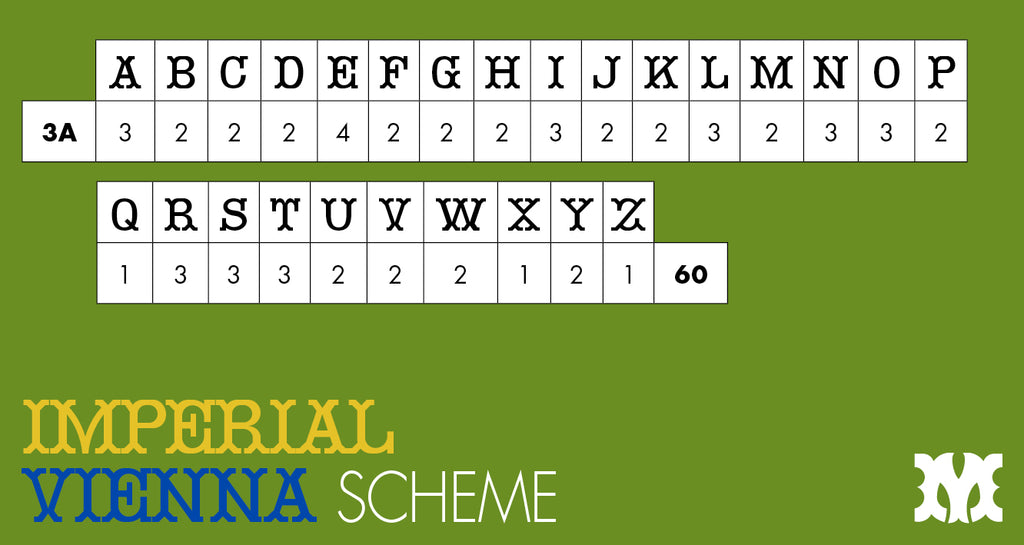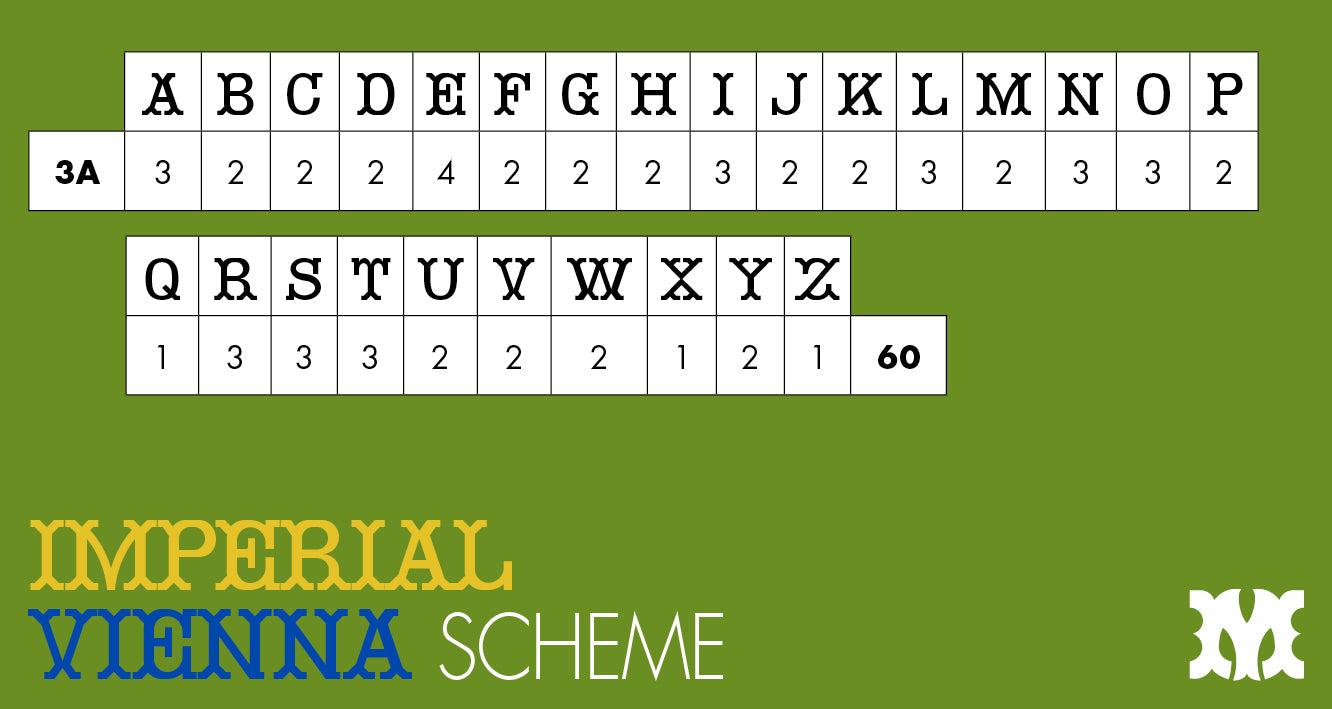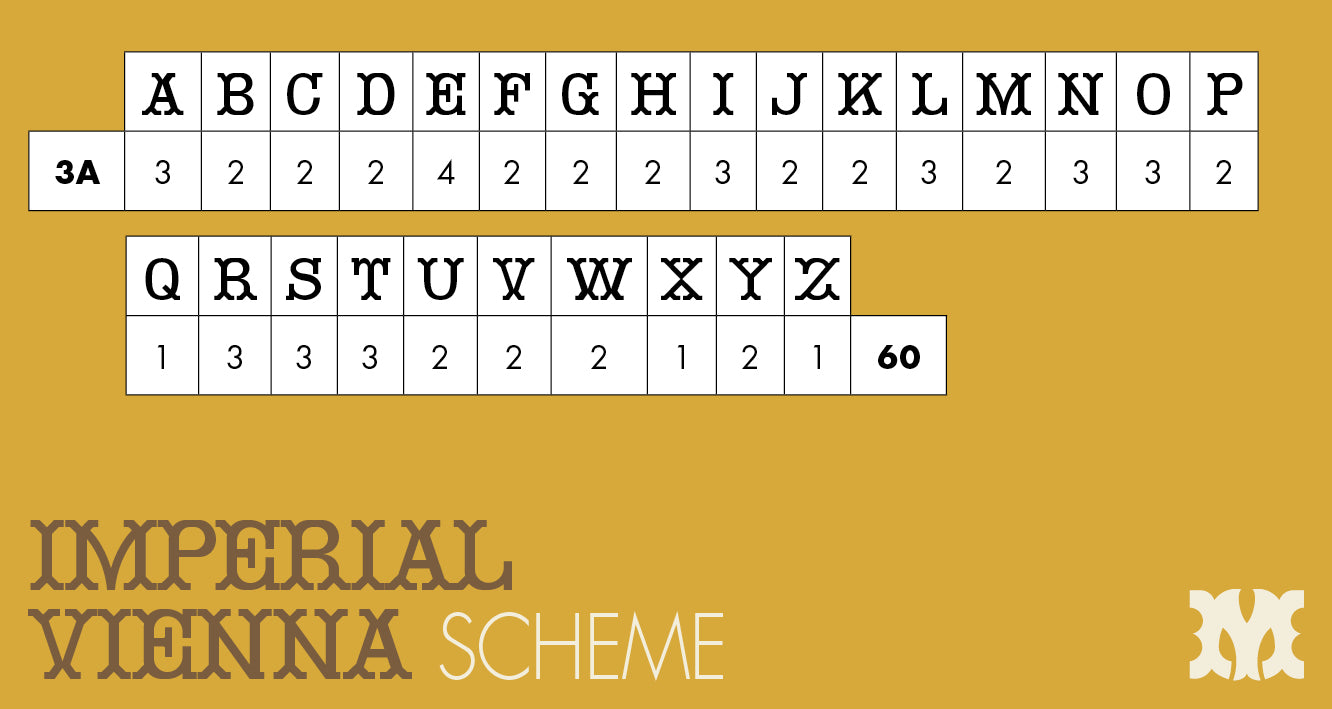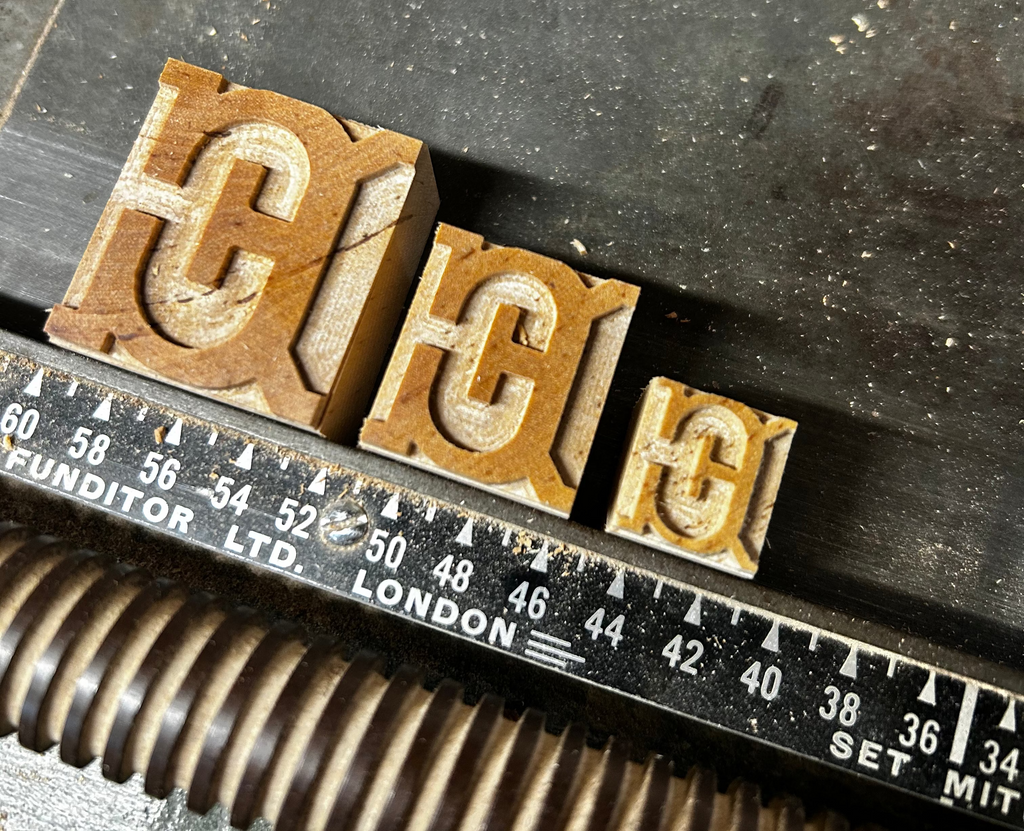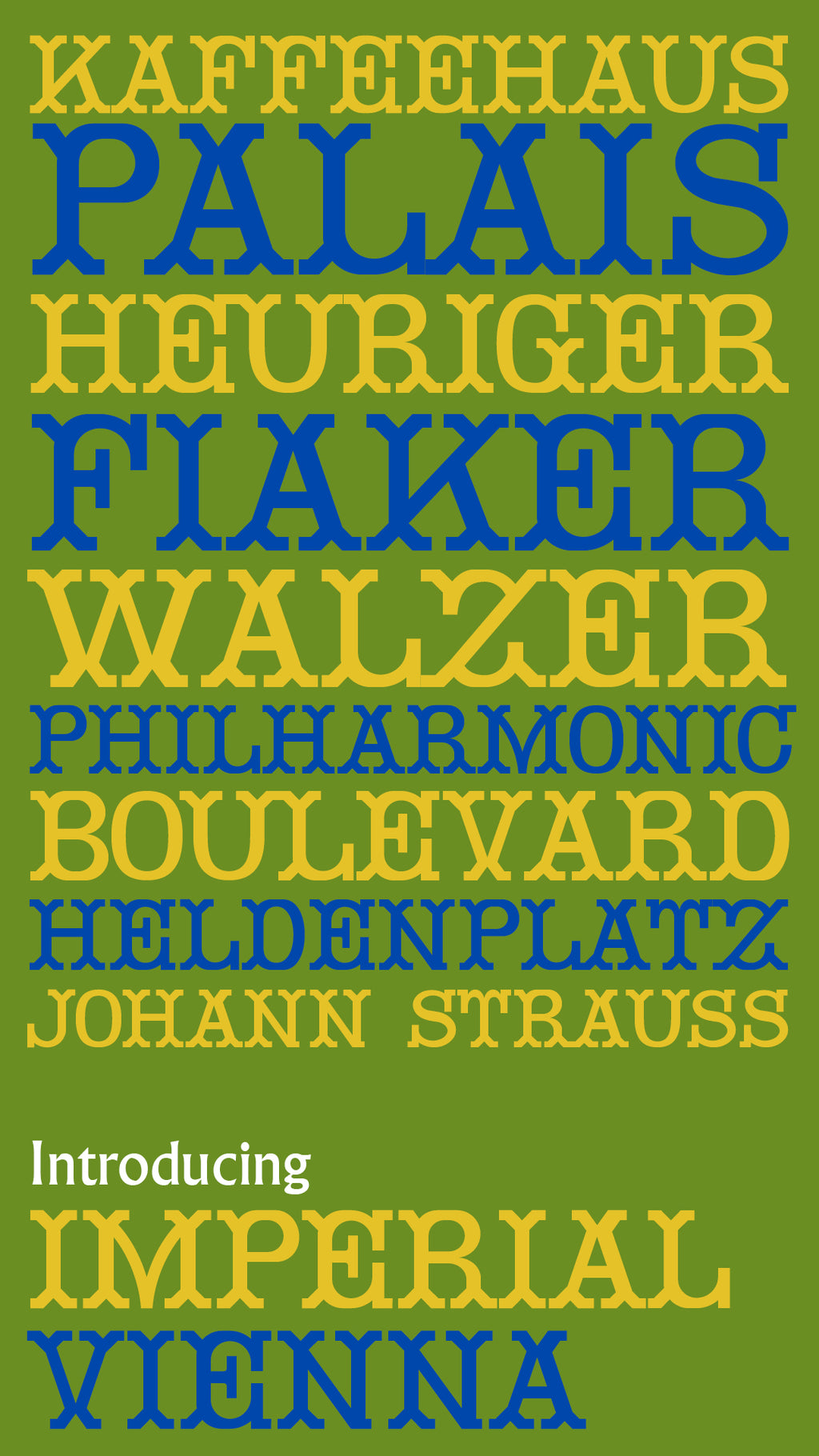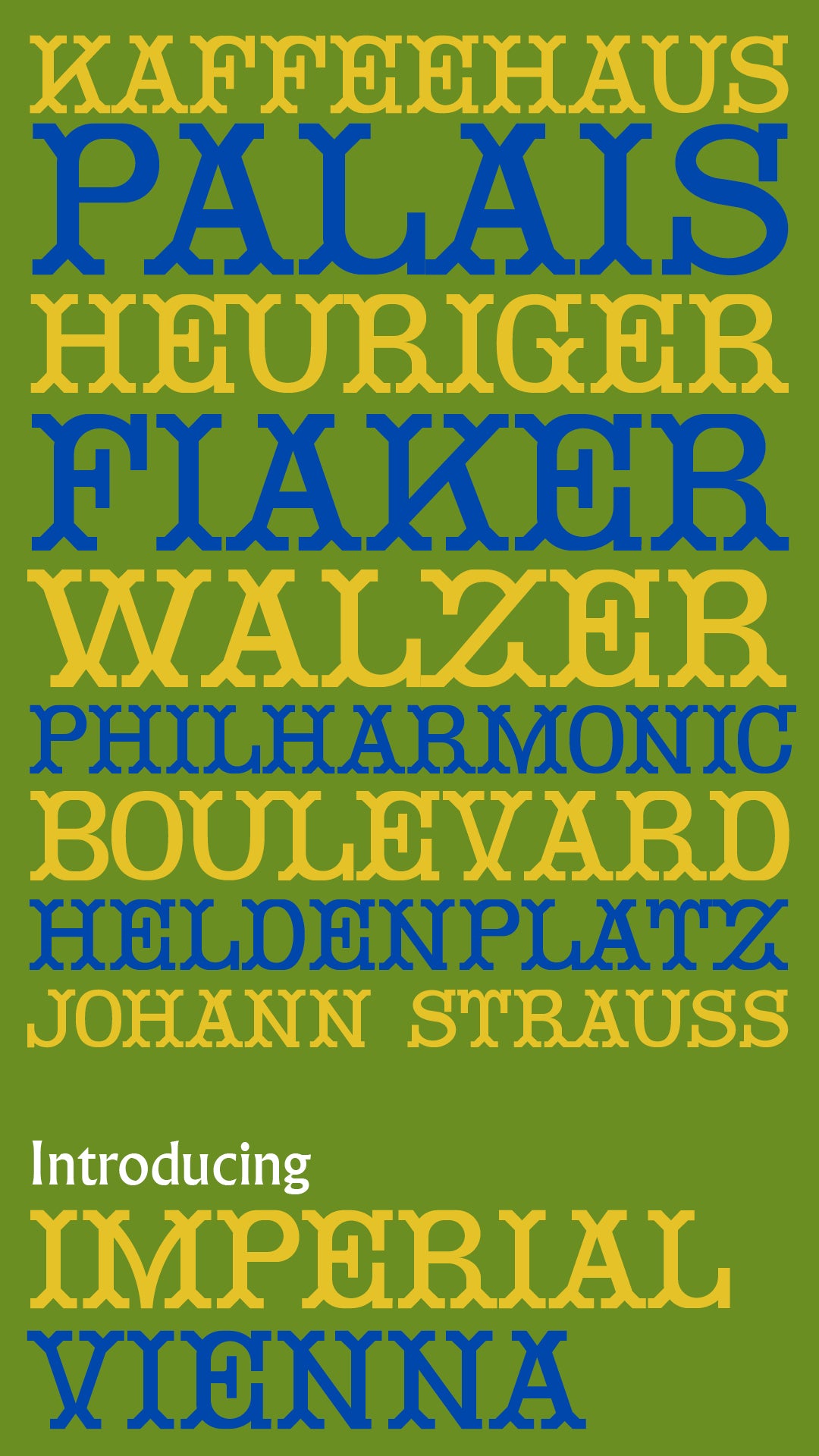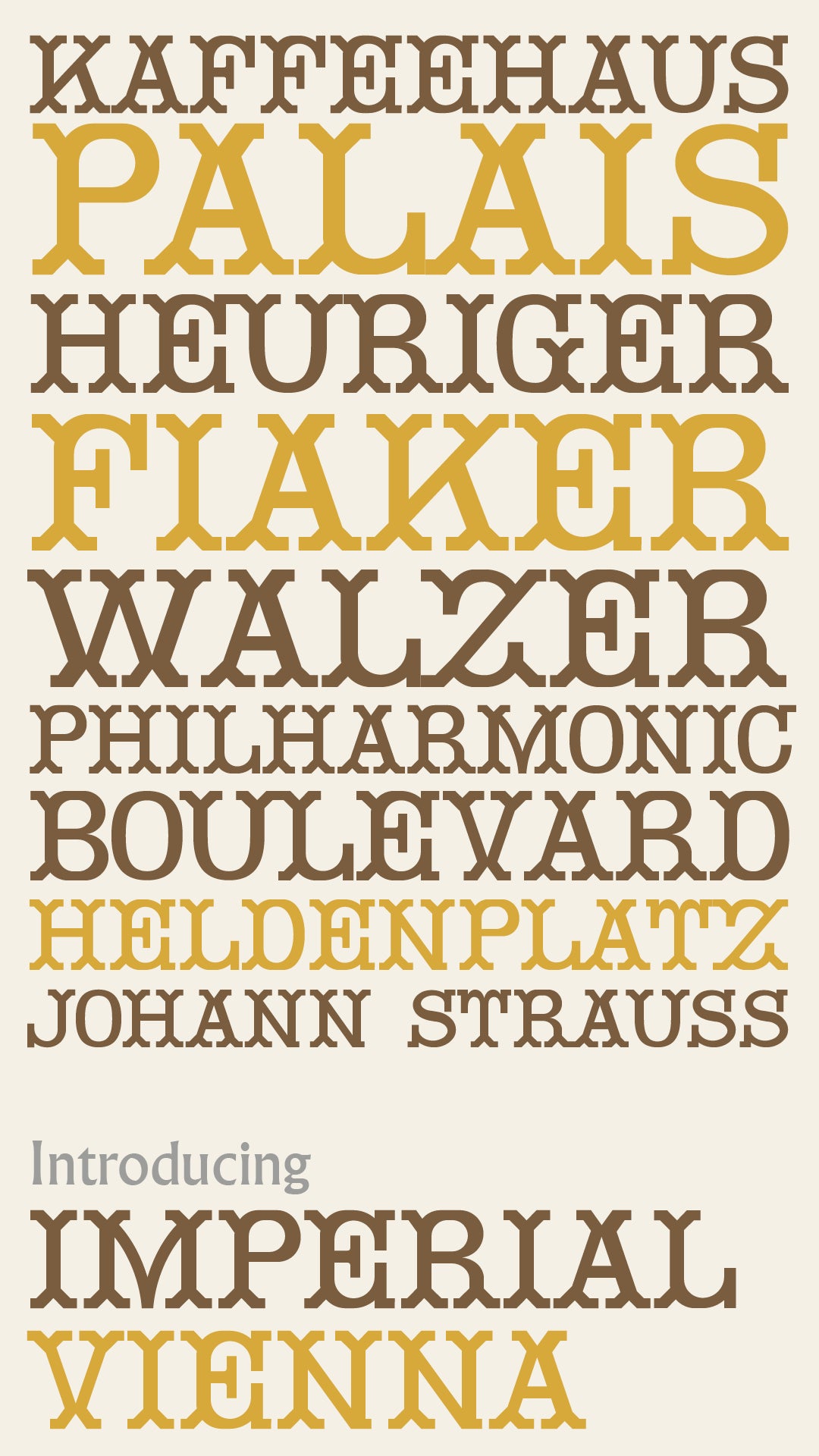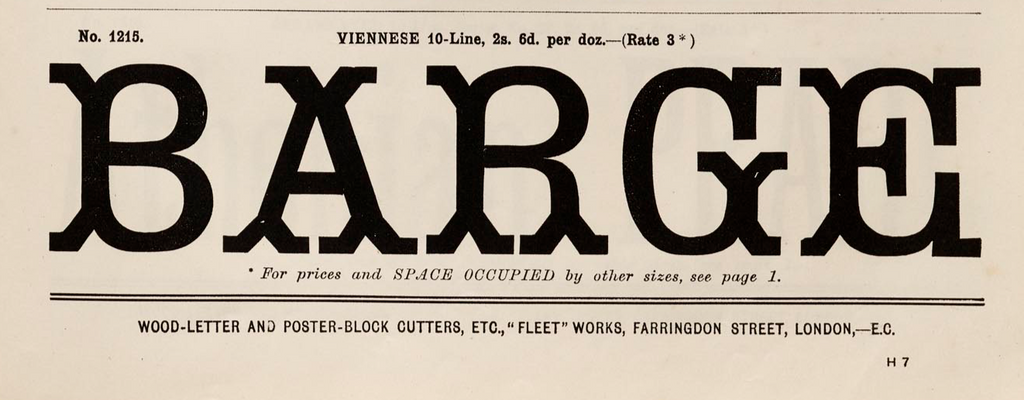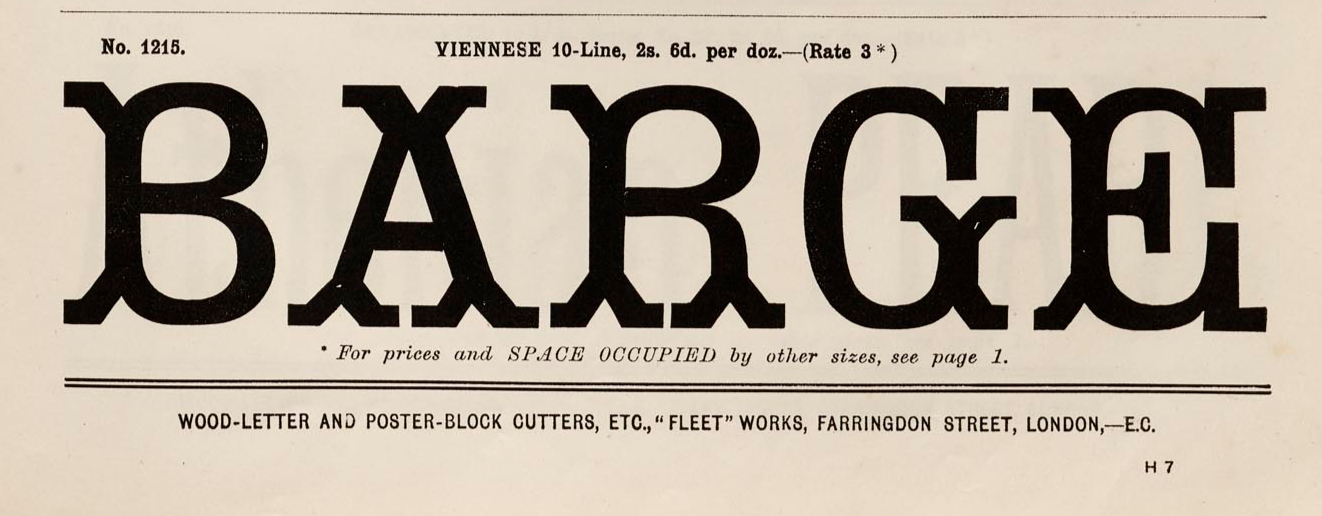
'Imperial Vienna' letterpress woodtype typeface
Introducing 'Imperial Vienna' - a typeface based on a 1906 Harrild & Sons 'Viennese' woodtype design
6 line (25.4mm), 10 line (42.3mm) and 16 line (67.7mm) sizes cut from end grain English hardwood using a combination of modern CNC technology and traditional hand woodworking tools (including an original printers saw), made to English type-high (0.918in or 23.3mm) within plus or minus 0.1mm tolerance, sealed with shellac and hand finished with a traditional polished printing surface.
Endgrain English hardwood, clear shellac
Each block varies in width however average size is 28mm x 23.3mm x 42.3 mm for the 10line size.